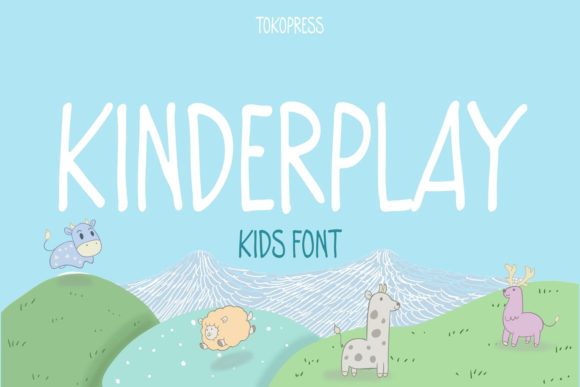
**Introducing Kinderplay Font: The Ultimate Handwritten Font for Kids**
Step into a world of imagination and creativity with Kinderplay Font, the most adorable handwritten font designed to bring joy and inspiration to your little one's world. Whether you're crafting heartwarming chalkboard quotes or creating engaging teaching materials, Kinderplay's charming and authentic style will captivate your audience with its playful and endearing spirit.
**A Symphony of Simplicity**
Kinderplay Font embodies the innocence and wonder of childhood with its simple, yet sophisticated lettering. Each stroke evokes a sense of authenticity and realism, infusing your designs with a personal touch that will resonate with children of all ages.
**Endless Possibilities for Imagination**
Let your imagination soar with Kinderplay Font's versatility. It's the perfect choice for designing children's books, worksheets, posters, and any other material where a touch of whimsy and creativity is desired. Its playful nature will enhance your creations, making them irresistible to young minds.
**The Perfect Font for Teaching Moments**
Transform your teaching materials into captivating experiences with Kinderplay Font. Its clear and legible lettering makes it ideal for creating lesson plans, assignments, and other educational resources. Capture your students' attention and make learning an unforgettable adventure.
**Empower Your Child's Creativity**
Nurture your child's artistic side by introducing them to Kinderplay Font. Its user-friendly design makes it accessible to young writers and artists, empowering them to express their imagination through handwritten notes, stories, and drawings. Watch as their creativity blossoms with every stroke.
**Capture the Magic of Childhood**
With Kinderplay Font, you can preserve the precious moments of childhood in a tangible way. Create personalized name tags, birthday invitations, and photo albums that will become cherished keepsakes for years to come. Its heartwarming style will evoke fond memories and bring a smile to your face with every glimpse.